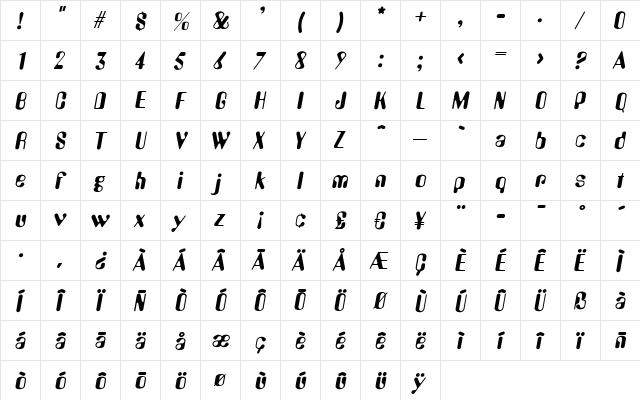
OliviaBecker Italic
Design Context for OliviaBecker Typeface
OliviaBecker is a composed and adaptable typeface that performs quietly and consistently across a wide range of design contexts. The slanted form adds forward momentum and visual energy.
Pro Tip: Use OliviaBecker for emphasis, pull quotes, and subheadings where its slanted energy can add rhythm to the layout.